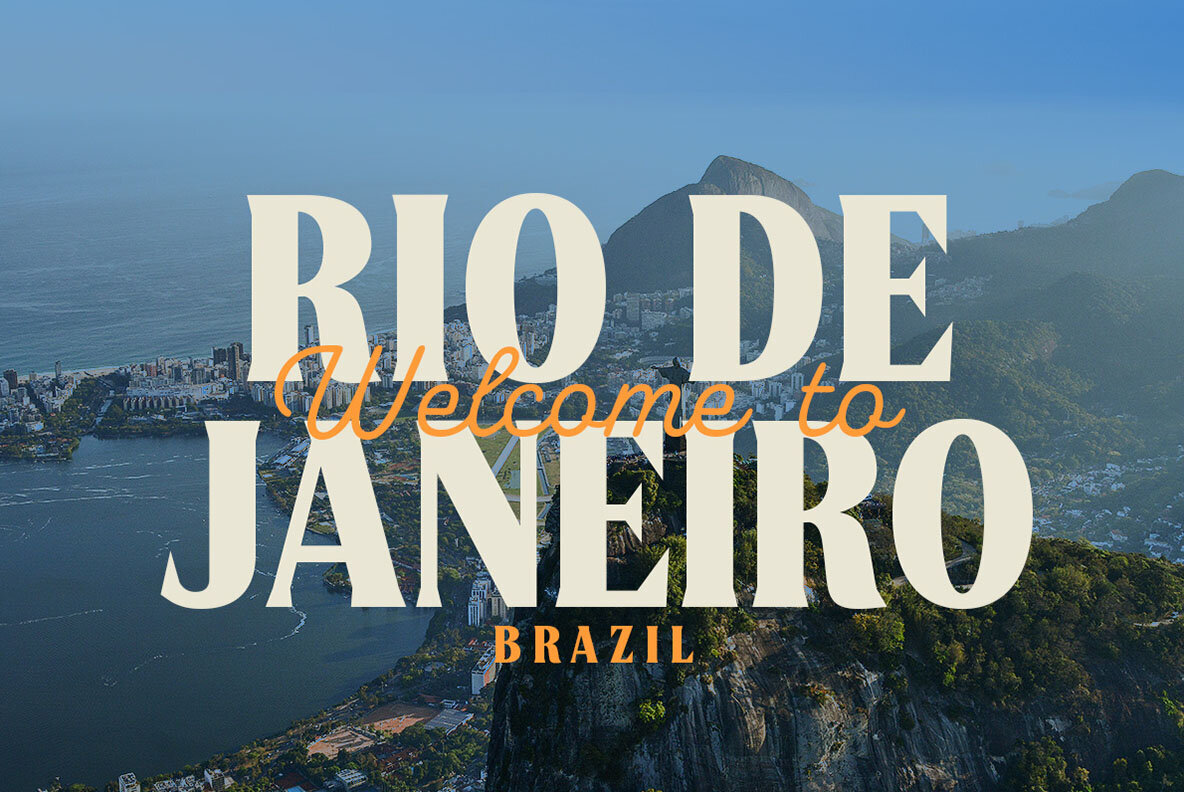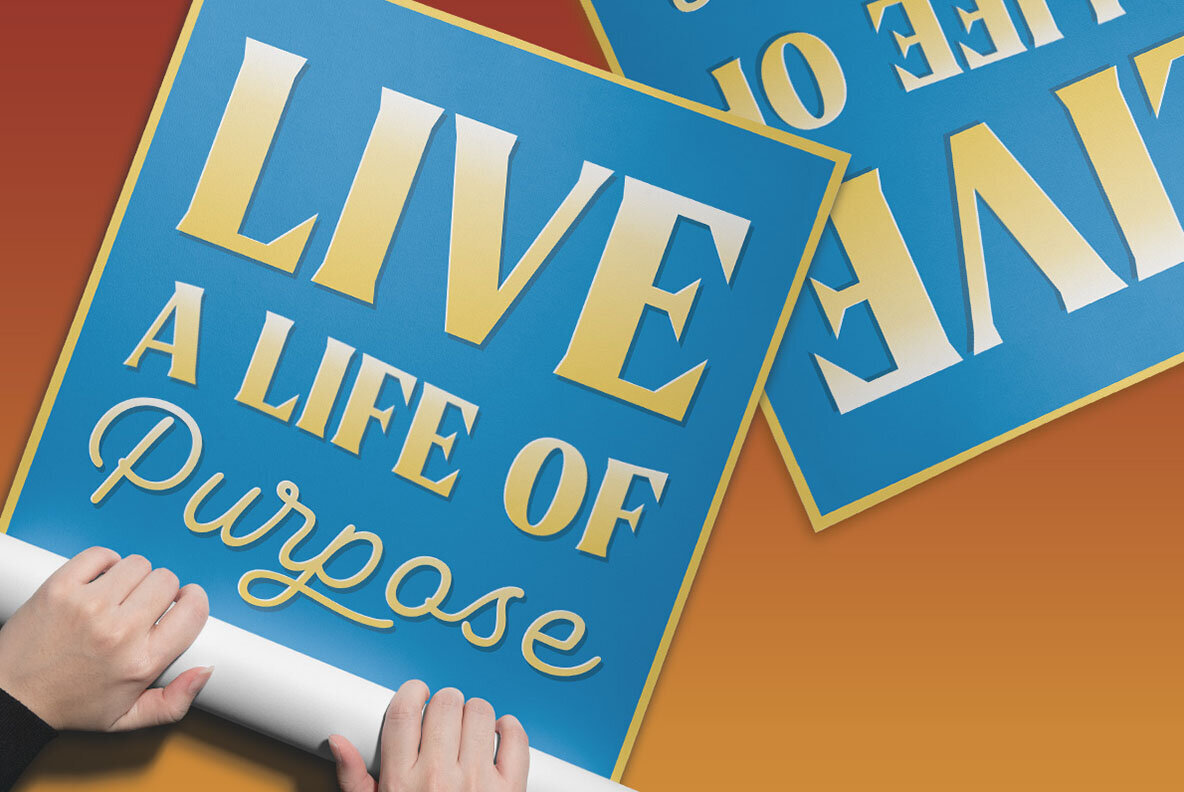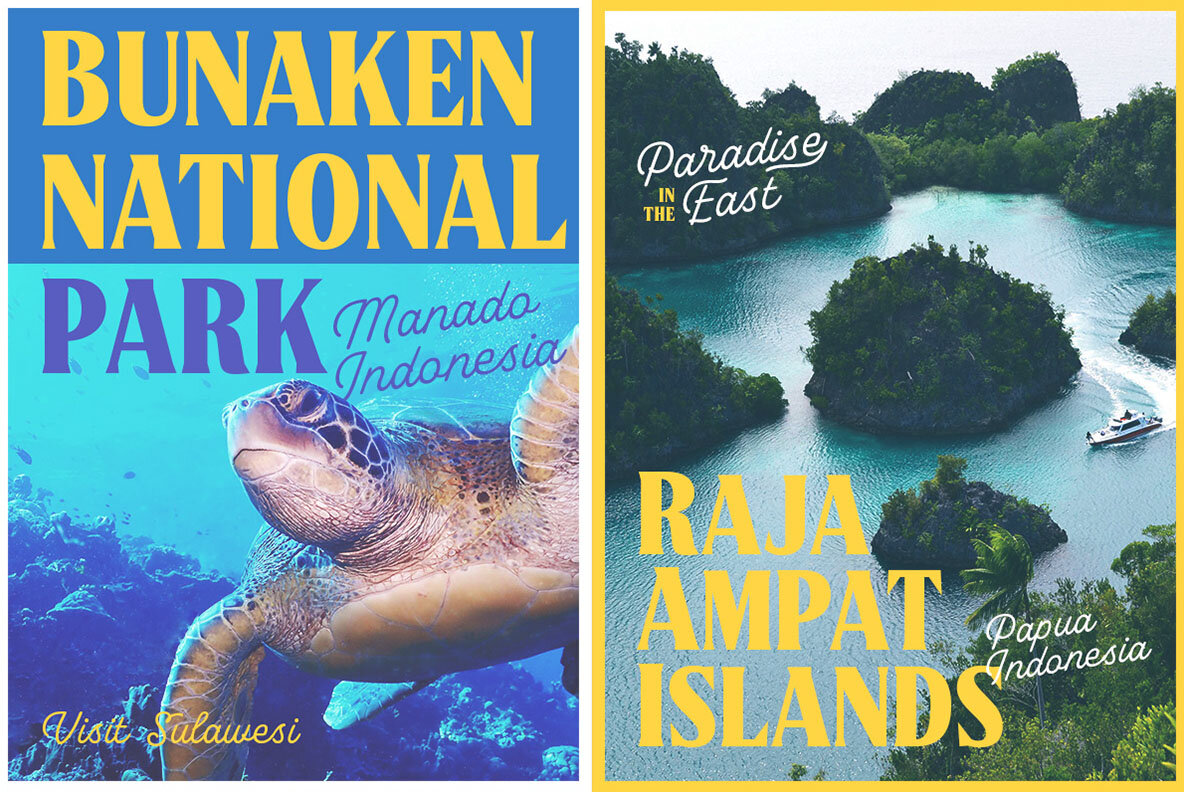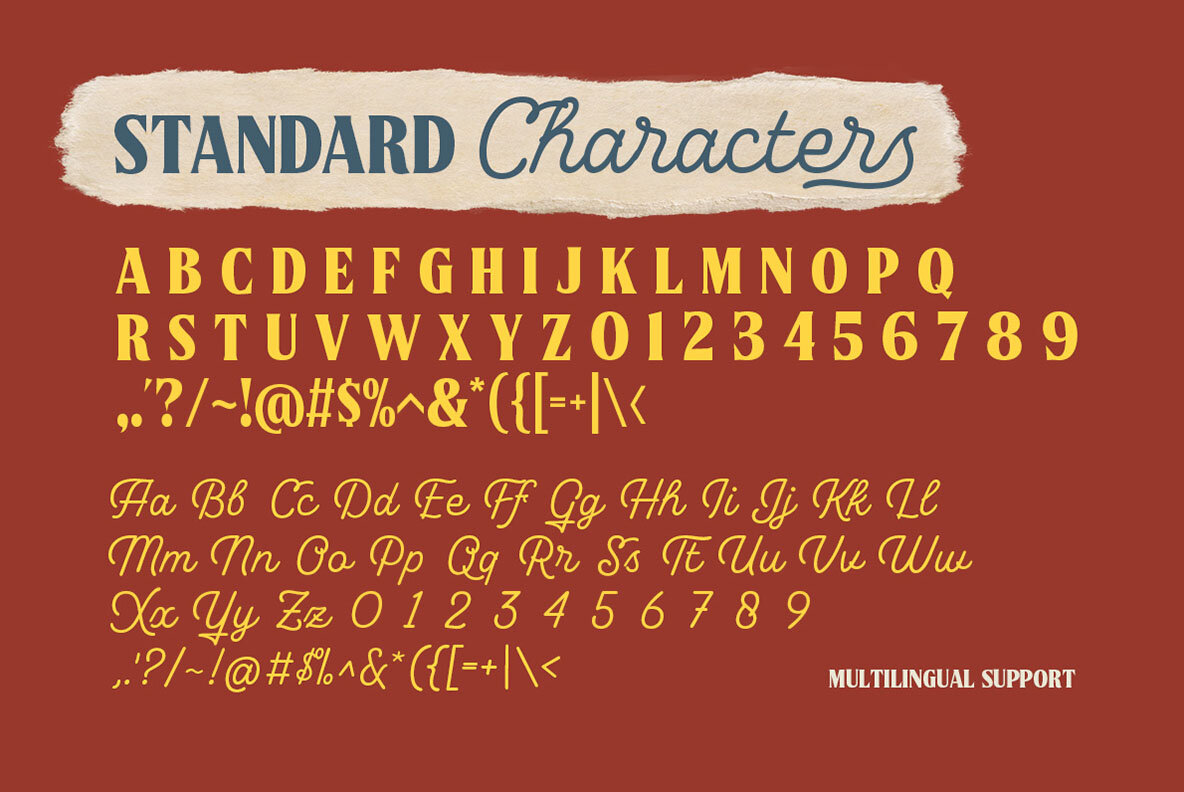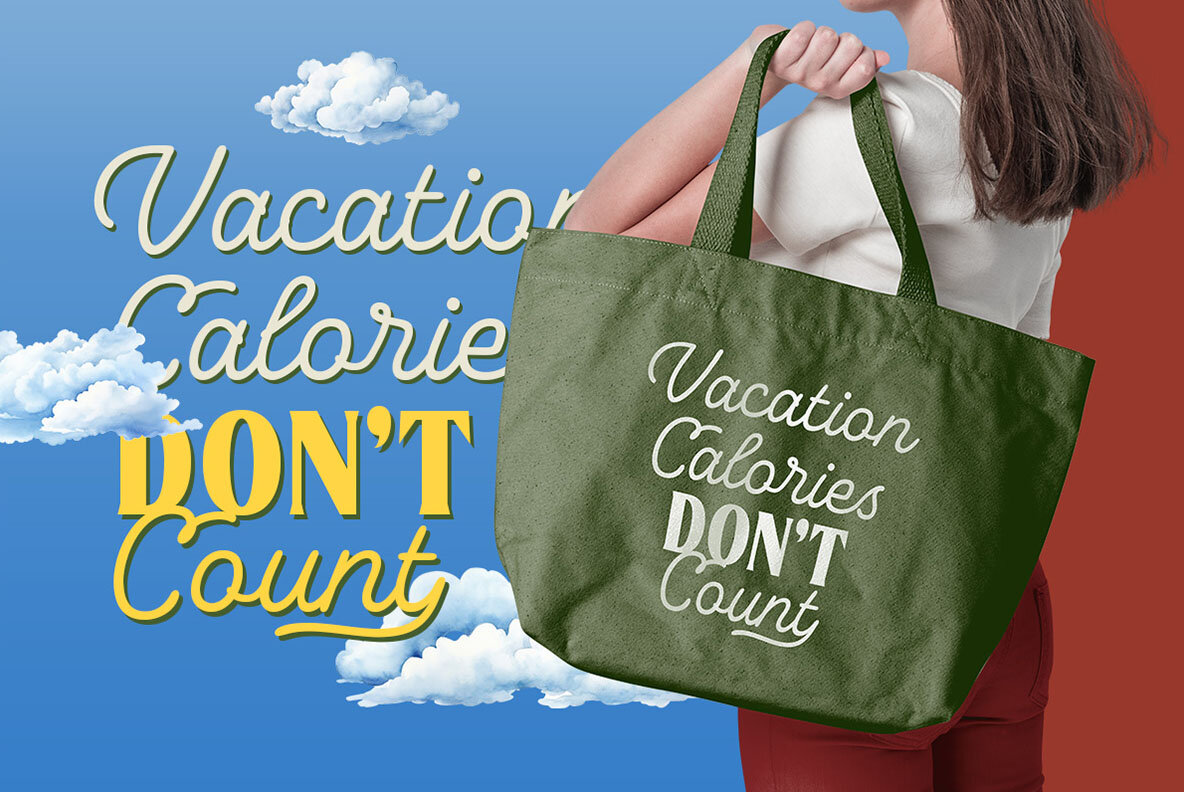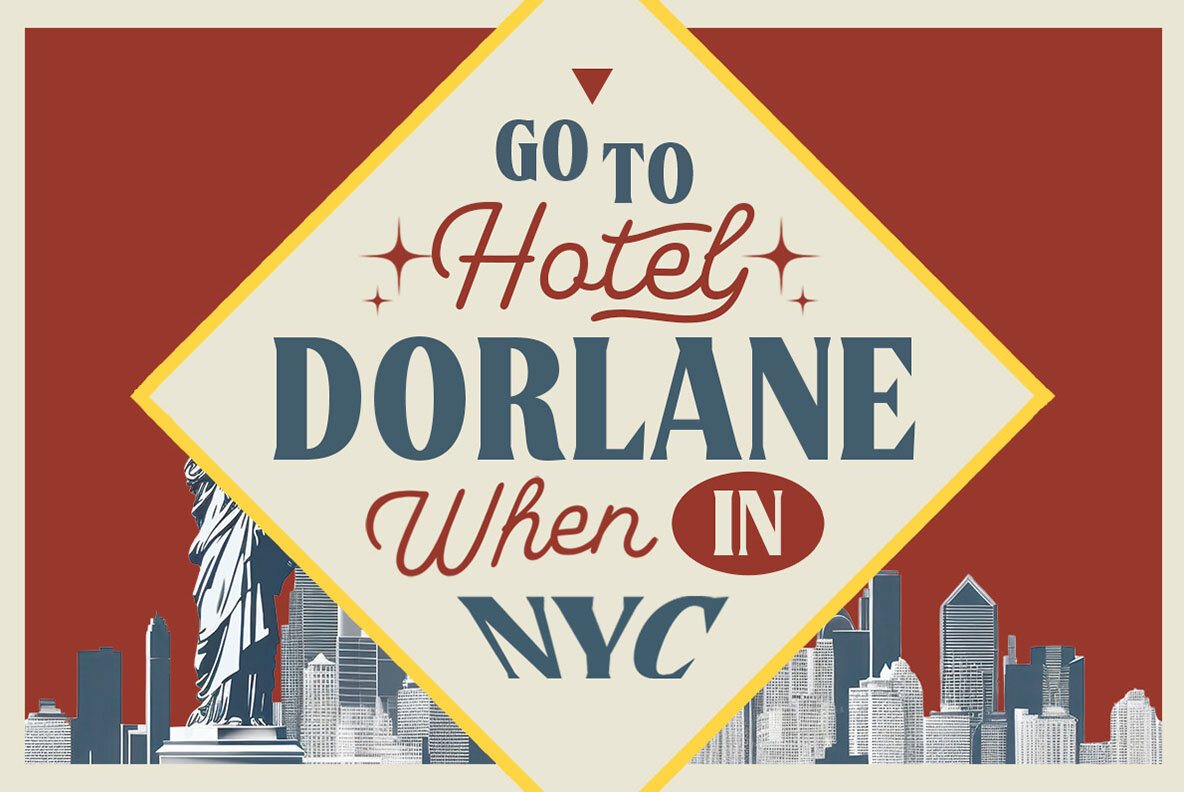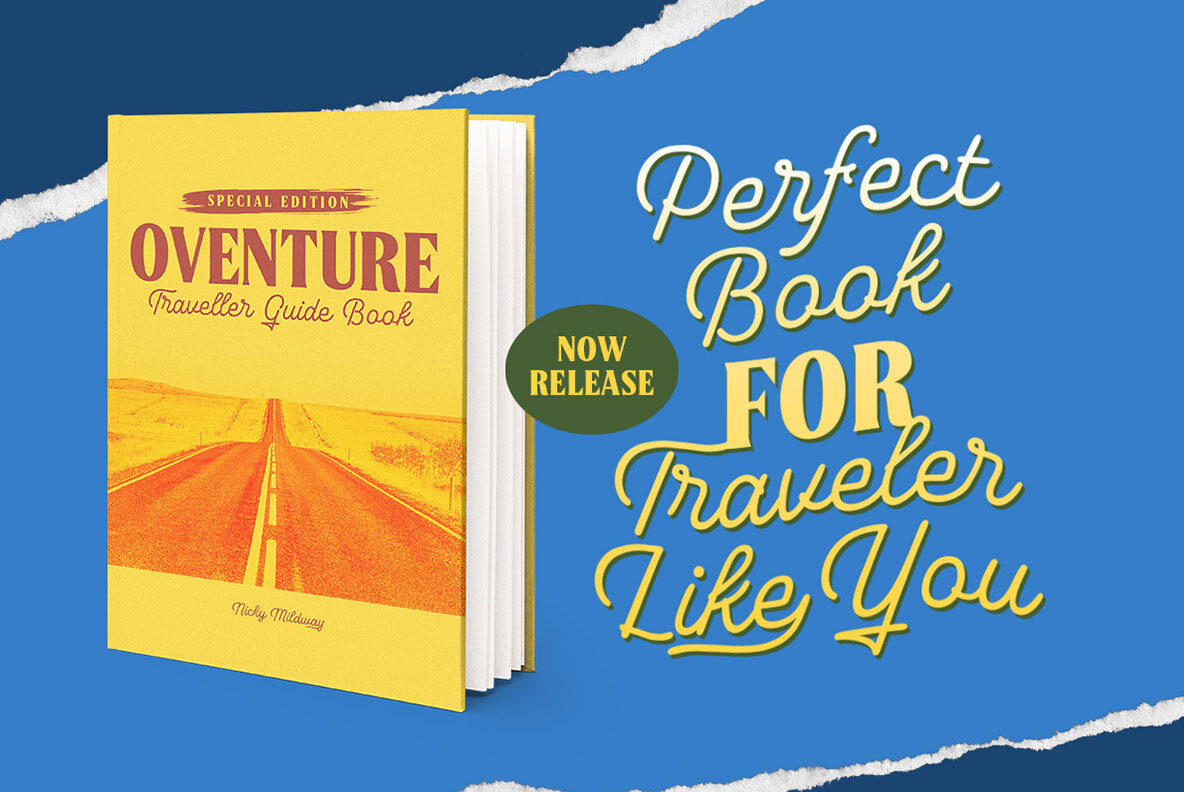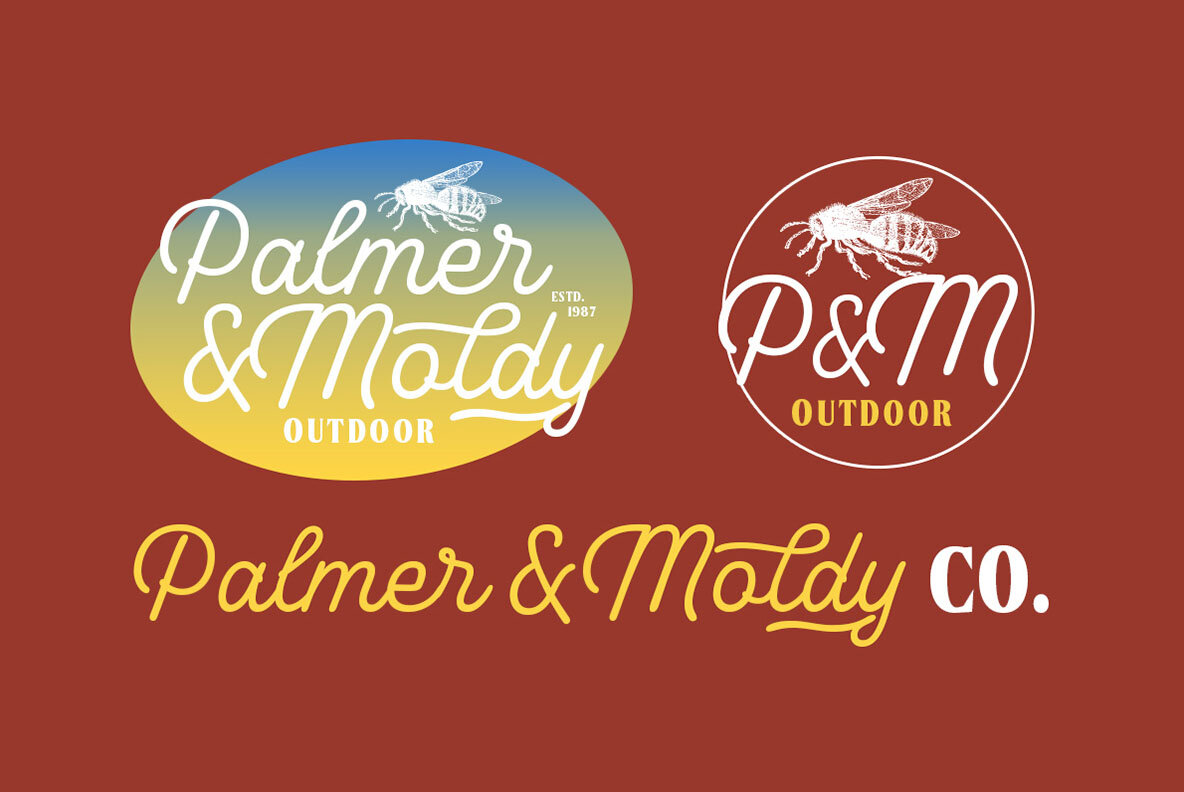
Colds Variana Font
Colds Varian offers a refined combination of monoline script and classic sans styles in a single typeface. Ideal for logos, headlines, signage, and formal applications like invitations and labels, this font duo shines across various mediums including magazines, books, greeting cards, packaging, fashion, makeup, stationery, novels, and advertising. For the optimal experience, use software that supports OpenType features and Glyph panels, such as Adobe applications and Corel Draw, to access all Glyph variations available.Colds Varian: A Classy Font Duo with Script and Sans